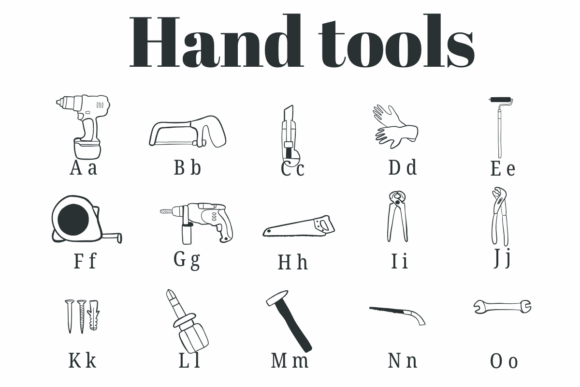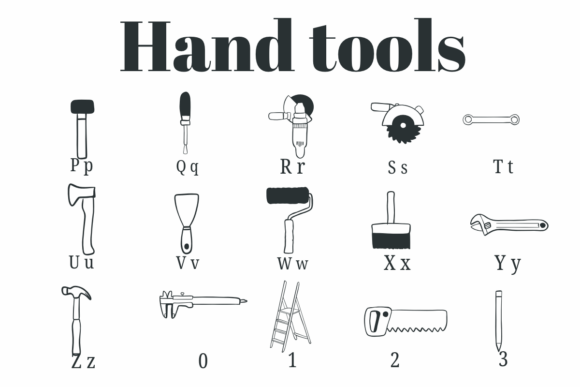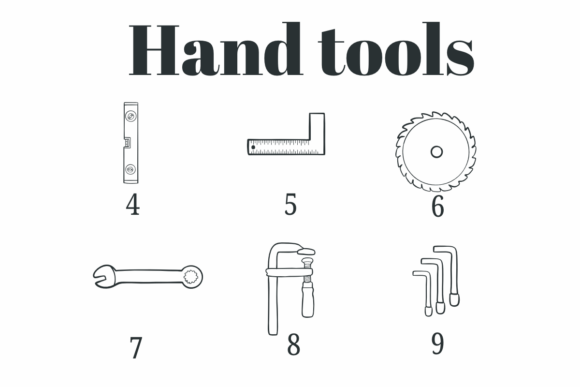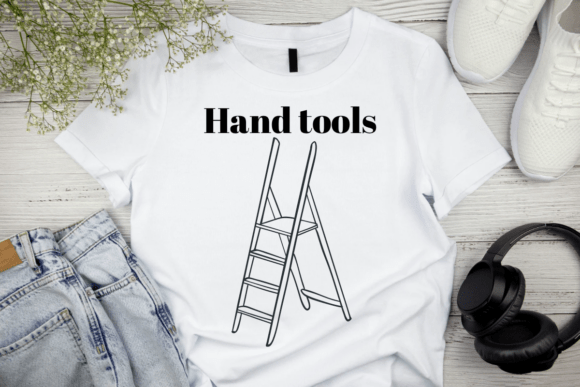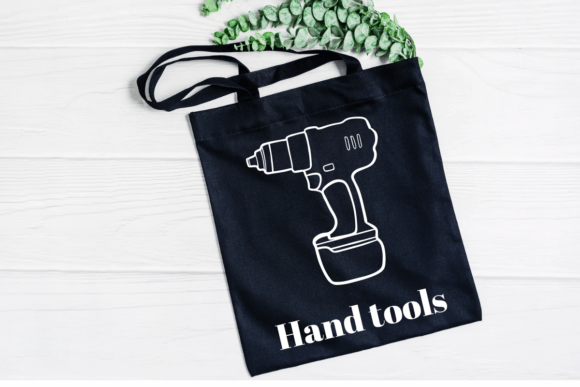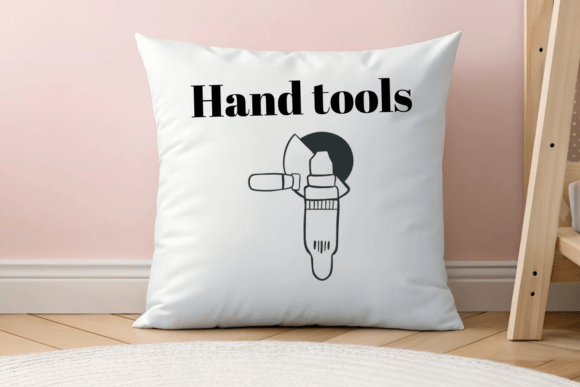
Build Something Beautiful with Hand Tools Font
Are you a designer, crafty enthusiast, or DIY expert looking for a unique and versatile typographic solution? Look no further than the Hand Tools font, a comprehensive dingbat collection that celebrates the art of craftsmanship and DIY culture. This exceptional typeface is not just a set of icons; it’s a visual toolkit that features a wide range of hand tools, from hammers and drills to saws and calipers.
The Ultimate Visual Toolkit
The Hand Tools typeface is an essential resource for anyone looking to add a touch of industrial charm to their designs. Whether you’re creating branding for a hardware store, designing flyers for a workshop, or crafting logos for a construction company, this font has got you covered. The extensive collection of hand tool icons allows you to create cohesive patterns, informative infographics, or charming accents that speak to the maker in everyone.
With the Hand Tools font, the design possibilities are endless. You can use the icons to create engaging editorial illustrations, add a decorative touch to your website, or even design eye-catching packaging for your products. The font’s versatility is unmatched, making it an excellent addition to any design project that values manual skill and creative labor.
Pairing Suggestions
To get the most out of the Hand Tools font, pair it with bold, industrial slab serifs to reinforce a “hard-working” aesthetic. This perfect pairing will add a touch of ruggedness and sophistication to your designs, making them stand out from the crowd. The contrast between the delicate tool icons and the robust slab serifs will create a visually appealing combination that’s sure to grab attention.
Celebrating Craftsmanship and DIY Culture
The Hand Tools font is more than just a typographic solution; it’s a celebration of craftsmanship and DIY culture. In an era dominated by digital technology, this font serves as a reminder of the importance of manual skill and creative labor. By incorporating the Hand Tools typeface into your designs, you’re not only adding a unique touch but also paying homage to the art of making and creating.
Whether you’re a professional designer or a crafty enthusiast, the Hand Tools font is an excellent resource to have in your toolkit. Designers can use the font to create stunning visuals for their clients, while crafters can use it to add a personal touch to their projects. The font’s flexibility and versatility make it an excellent choice for anyone looking to add a touch of industrial charm to their designs.
- Comprehensive dingbat collection featuring a wide range of hand tools
- Essential resource for hardware store branding, workshop flyers, construction logos, and editorial illustrations
- Perfect for creating cohesive patterns, informative infographics, or charming accents
- Pairs seamlessly with bold, industrial slab serifs
- Celebrates craftsmanship and DIY culture
- Flexible and versatile, suitable for various design projects
Get Ready to Build Something Beautiful